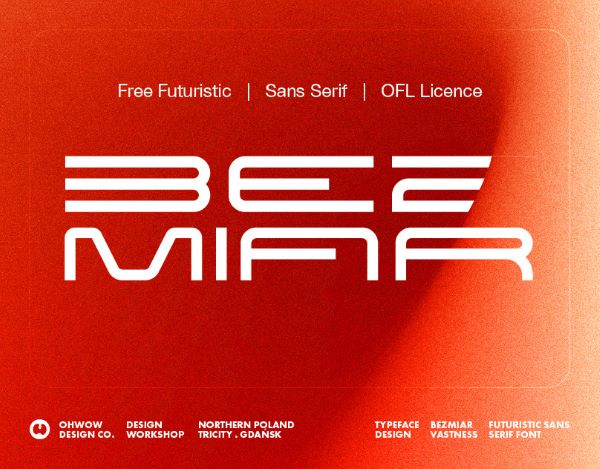
Bezmiar Font
Bezmiar by OHWOW Design Co. is a free futuristic font whose very name captures its ambition: “Bezmiar” comes from the Polish word for vastness, and the letterforms reflect that scale of thinking — clean, expansive, and shaped by a space-age visual sensibility that suggests open skies, desert horizons, and the quiet infinity of the cosmos. Created as the designer’s first typeface and released under the SIL Open Font License, it is available completely free for personal and commercial projects with no restrictions.
Bezmiar is a quietly striking and generously licensed addition to our free font collection, created by Gdańsk, Poland-based OHWOW Design Co. — a debut typeface that shows genuine typographic instinct and a clear aesthetic vision built around scale, space, and futurism. Browse our full library of free fonts and discover more distinctive typefaces crafted by independent designers around the world.